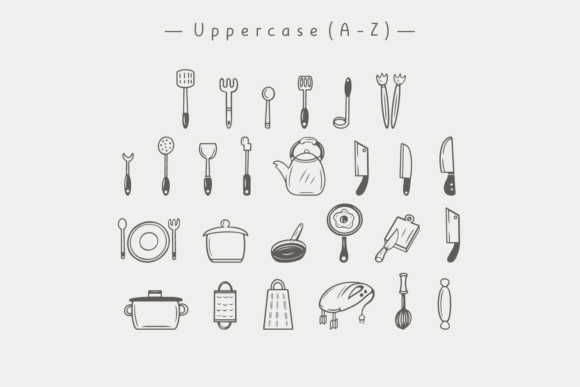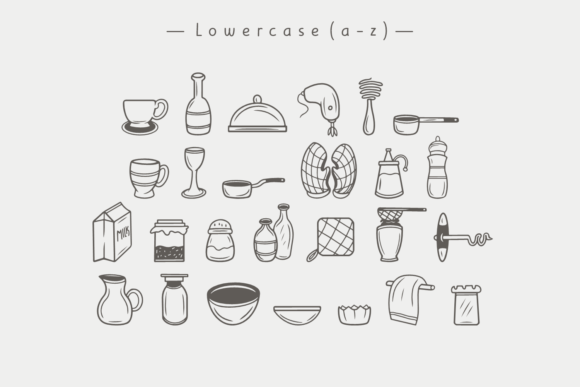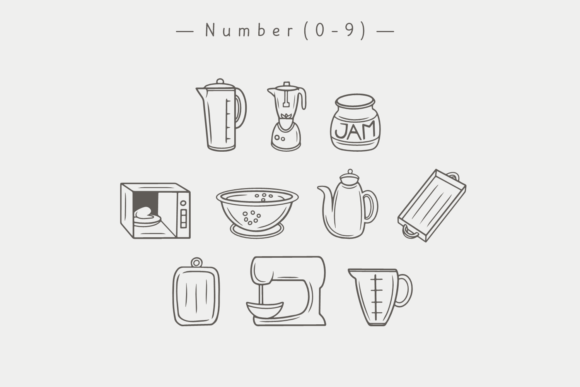
Dapour Font: The Cute and Homey Dingbats Font for Your Design Projects
Are you a designer or crafter looking for a unique and useful font to add a personal touch to your projects? Look no further than Dapour Font, a cute, homey, and useful dingbats font that’s perfect for kitchen-related designs. In this article, we’ll take a closer look at Dapour Font, its features, and how you can use it to make your projects more interesting and lively.
What is Dapour Font?
Dapour Font is a dingbats font that features a collection of kitchen-related icons, illustrations, and symbols. The font is designed to resemble a homey, hand-drawn style, making it perfect for projects that require a personal and warm touch. With Dapour Font, you can add a touch of whimsy and playfulness to your designs, making them stand out from the crowd.
Features of Dapour Font
Dapour Font comes with a range of features that make it a useful and versatile font for designers and crafters. Some of its key features include:
- Cute and Homey Design: Dapour Font features a unique and adorable design that’s perfect for kitchen-related projects.
- Kitchen-Related Icons: The font includes a range of kitchen-related icons, illustrations, and symbols, making it perfect for designers and crafters who work on food, cooking, or kitchen-themed projects.
- Dingbats Font: Dapour Font is a dingbats font, which means it’s a collection of symbols, icons, and illustrations that can be used to add visual interest to your designs.
How to Use Dapour Font
Dapour Font is a versatile font that can be used in a variety of design projects, including:
- Food Blogs and Recipes: Add a touch of whimsy to your food blog or recipe designs with Dapour Font’s kitchen-related icons and illustrations.
- Kitchen Decor and Signage: Use Dapour Font to create adorable kitchen decor and signage, such as welcome signs, chalkboards, and menus.
- Crafting and Scrapbooking: Dapour Font is perfect for crafters and scrapbookers who want to add a personal touch to their projects.
- Social Media Graphics: Use Dapour Font to create eye-catching social media graphics, such as Instagram posts, Facebook graphics, and Pinterest pins.
Why Choose Dapour Font?
So why choose Dapour Font for your design projects? Here are just a few reasons:
- Unique and Adorable Design: Dapour Font features a unique and adorable design that’s sure to make your projects stand out.
- Kichen-Related Icons and Illustrations: The font includes a range of kitchen-related icons and illustrations, making it perfect for designers and crafters who work on food, cooking, or kitchen-themed projects.
In conclusion, Dapour Font is a cute, homey, and useful dingbats font that’s perfect for designers and crafters who want to add a personal touch to their projects. With its unique and adorable design, kitchen-related icons and illustrations, and ease of use, Dapour Font is a must-have font for anyone who works on kitchen-themed projects. So why wait? Add Dapour Font to your library today and see the difference it can make in your designs!